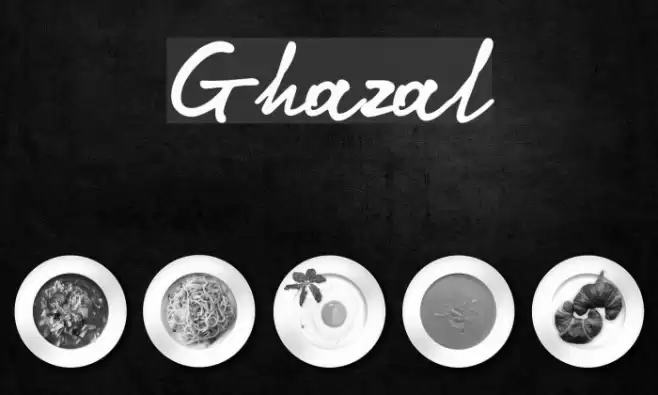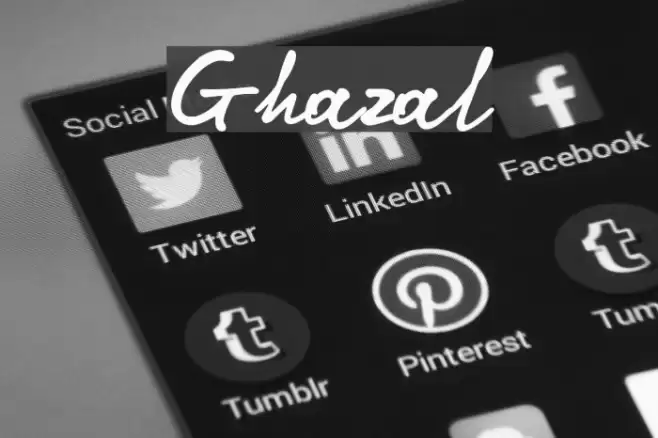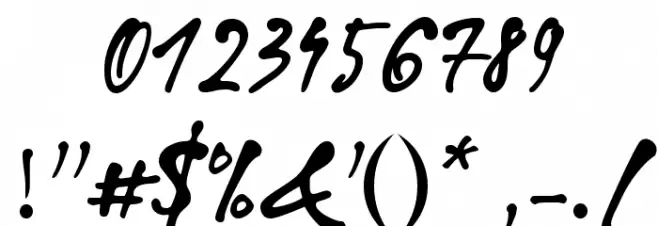
Ghazal Font
Ghazal Description
This font exhibits a fluid and dynamic script style, characterized by its cursive and handwritten appearance. The letters are connected, creating a seamless flow that mimics natural handwriting. The strokes are bold and expressive, with a slight slant that adds to its elegance and sophistication. The uppercase letters maintain a consistent height, while the lowercase letters vary slightly in size, enhancing the organic feel. Numbers and special characters are designed to match the overall aesthetic, ensuring a cohesive look across all elements.
A bold, cursive script font with a handwritten style from Uncategorized fonts.
- Proposed Projects: Ideal for wedding invitations, greeting cards, personal branding, and artistic projects that require a personal touch.
- Use Case: Logos, Headlines, Invitations